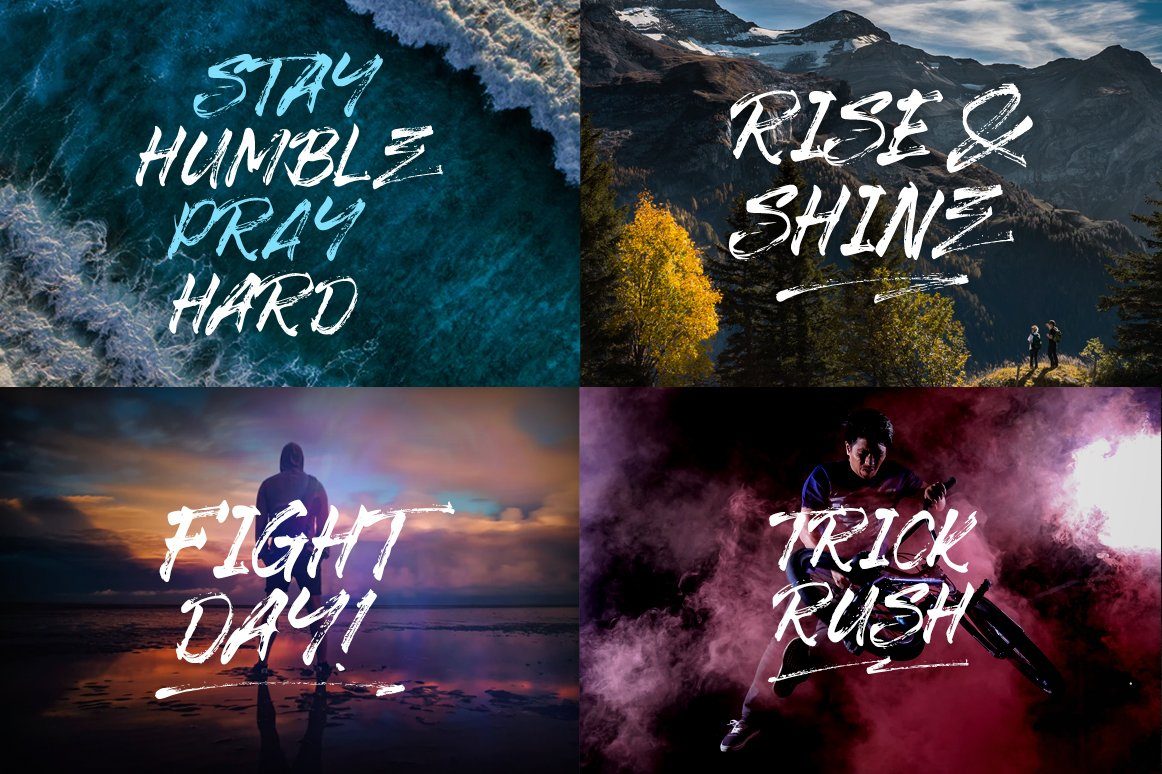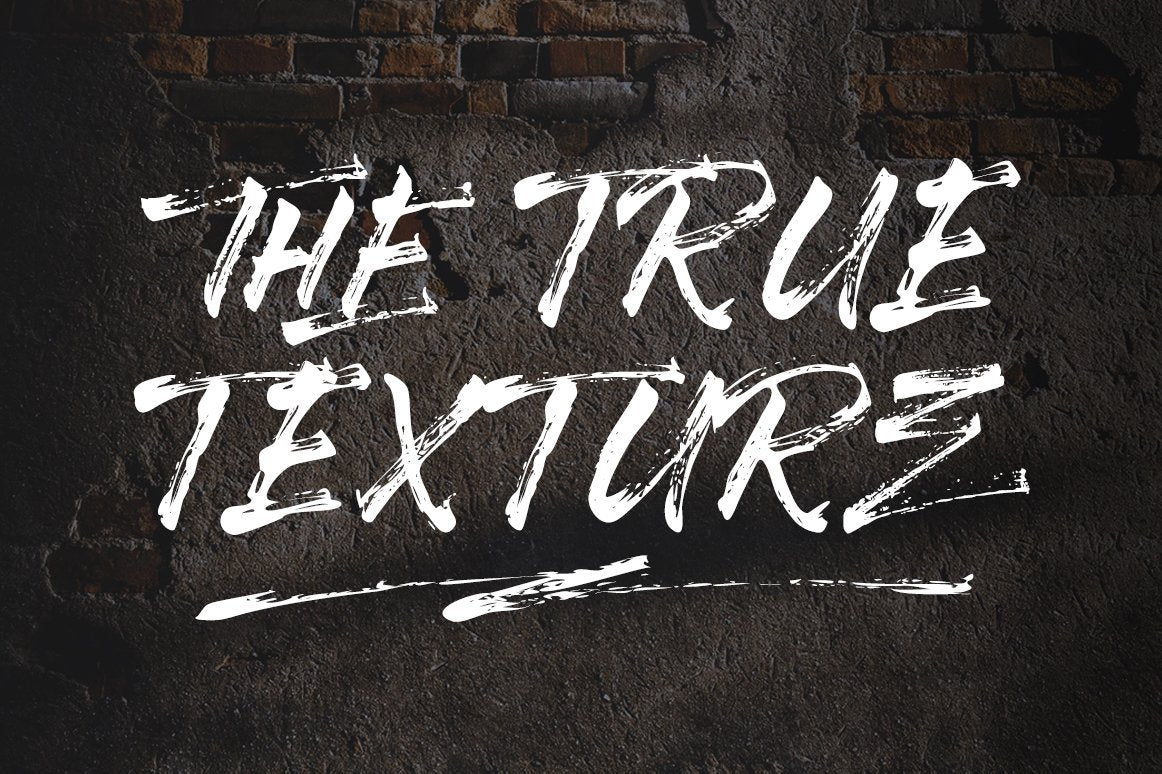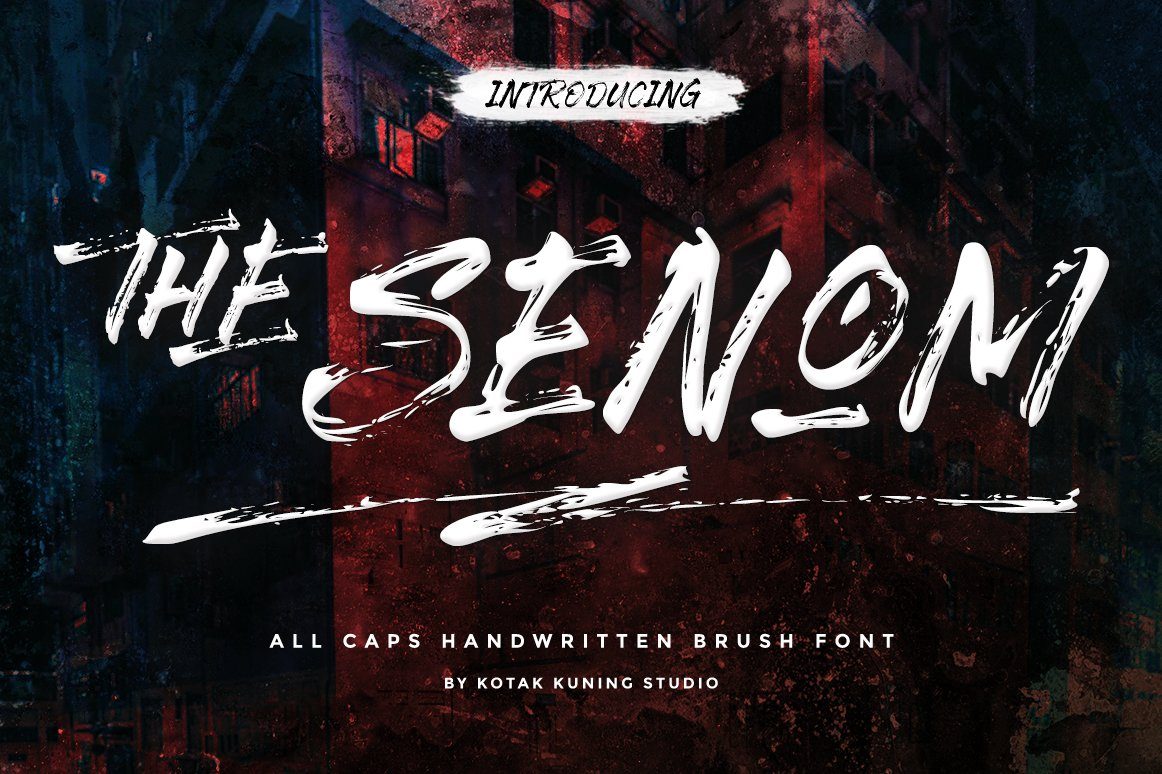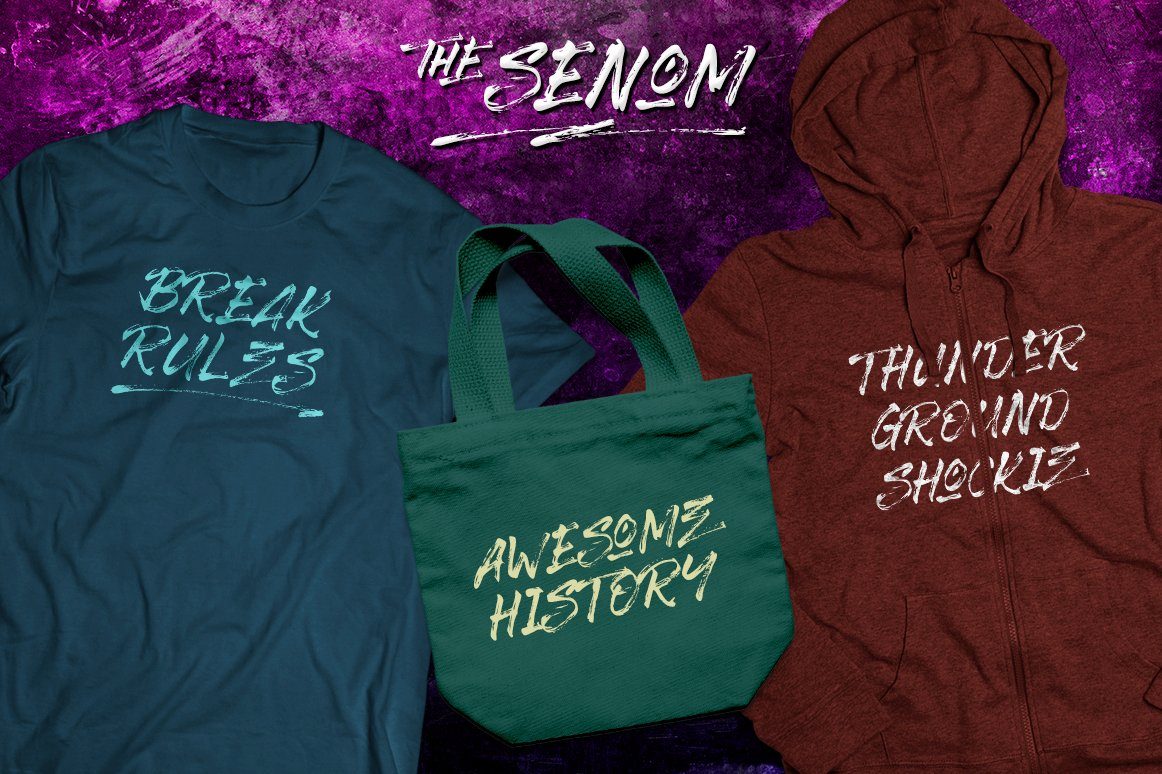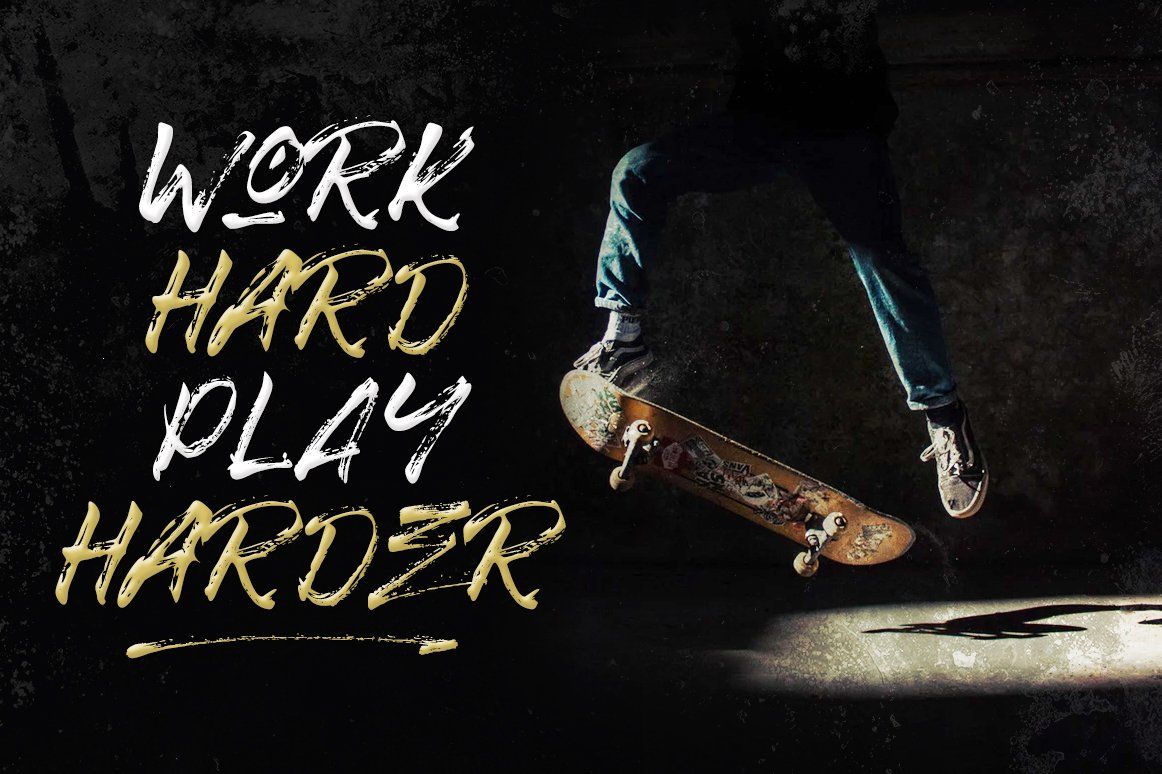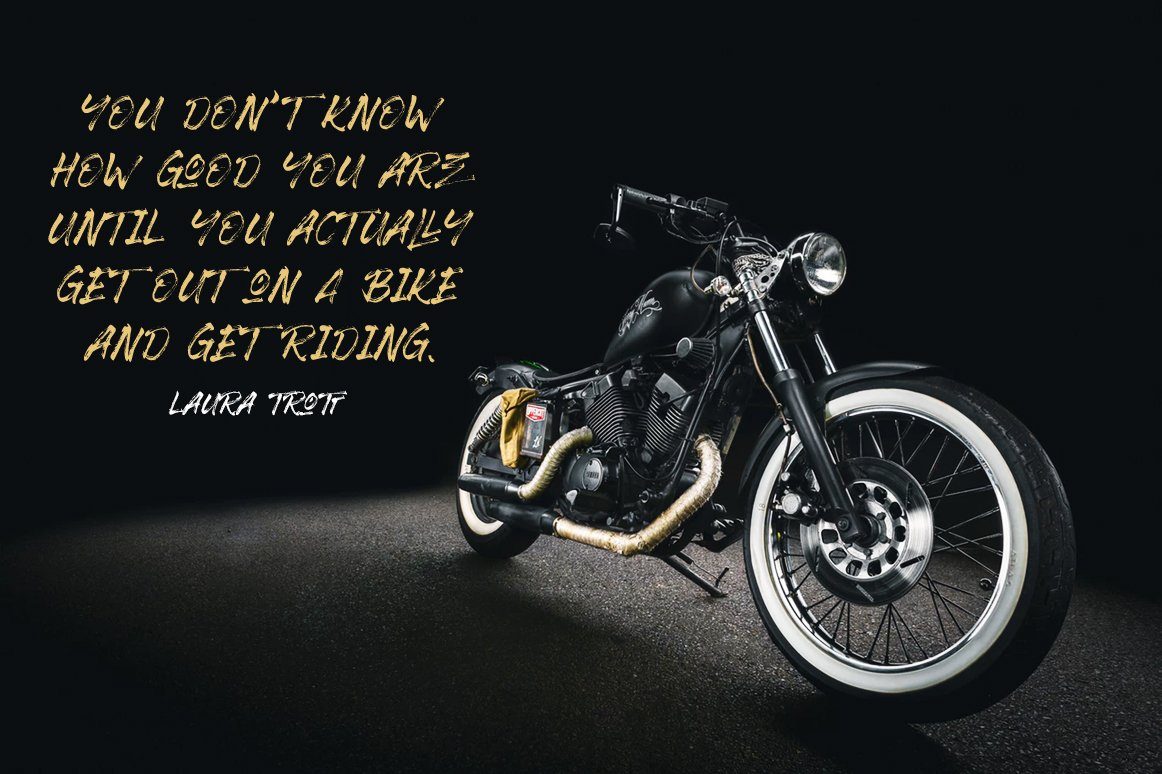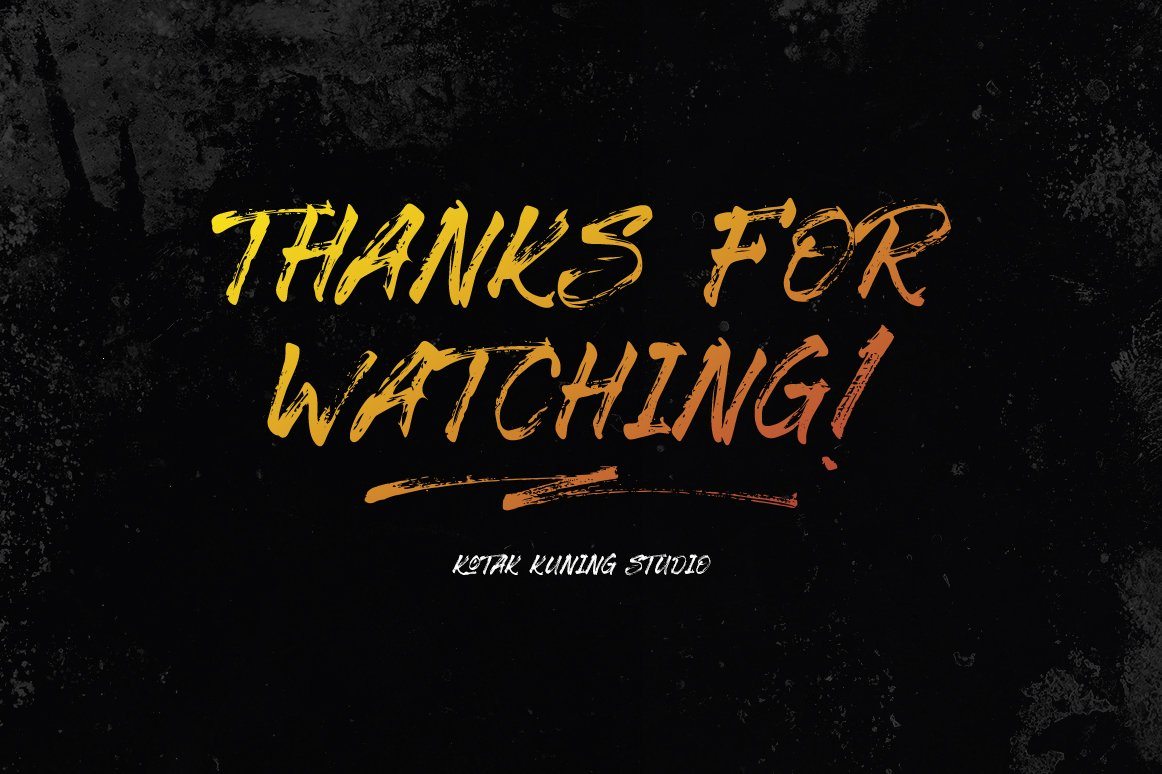
The Senom
About The Senom
Introducing my new font The Senom!!! All caps hand-drawn font that was created with a dry brush which gives more personal touch and makes the font looks being customized. This font is suitable to use as a logotype, product designs, label, watermark, social media posts, apparel, invitation, signboard, sports club, motor/car, special events or anything that need handwriting taste. What you get: TheSenom.ttf and TheSenom.otf TheSenomSwash.ttf and TheSenomSwash.otf The Senom includes Alternates and Ligatures Character Numbers + punctuation I highly recommend using a program that supports OpenType features and Glyphs panels such as Adobe Illustrator, Adobe Photoshop CC, Adobe InDesign, or CorelDraw, so you can see and access all Glyph variations. We hope you enjoy the font. Thank You.